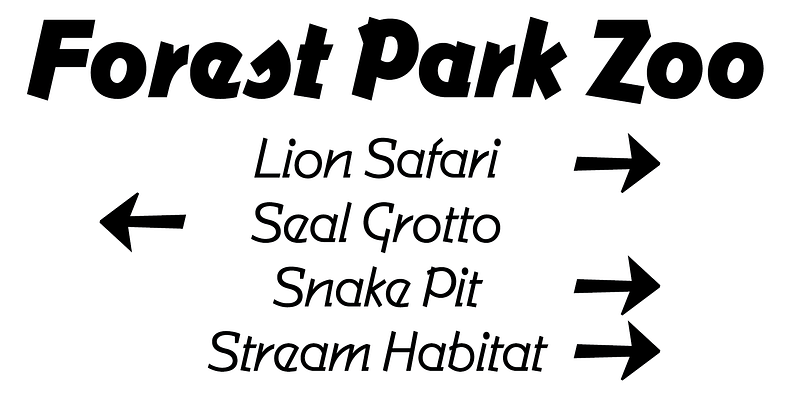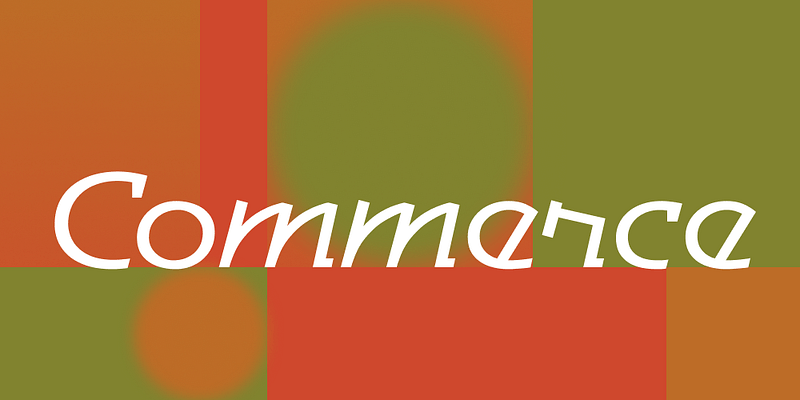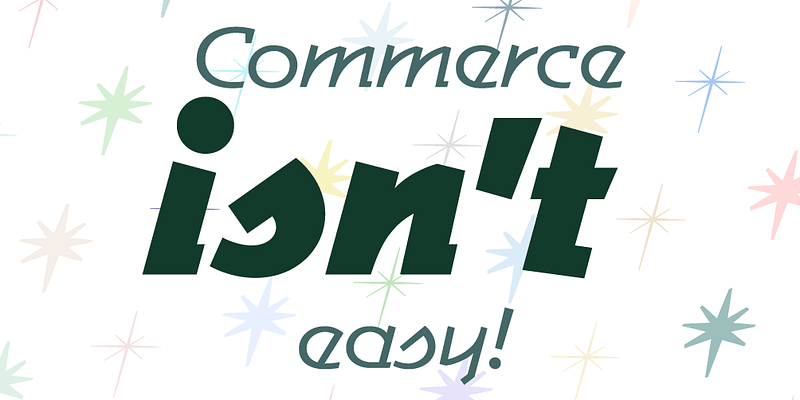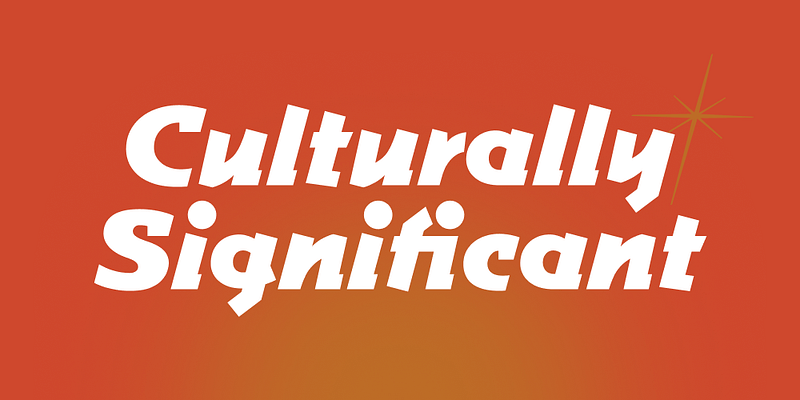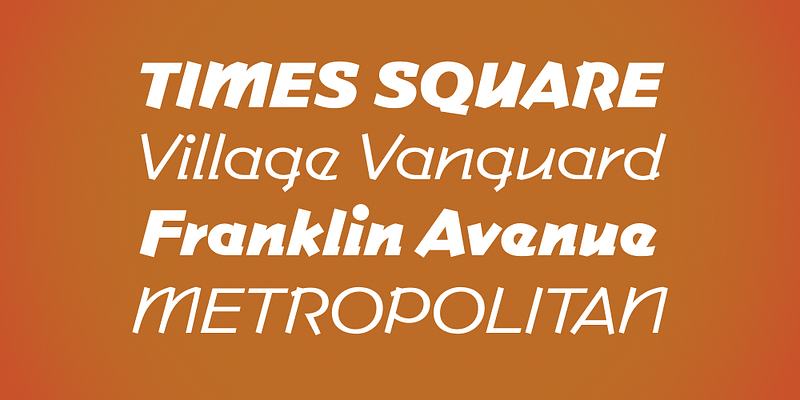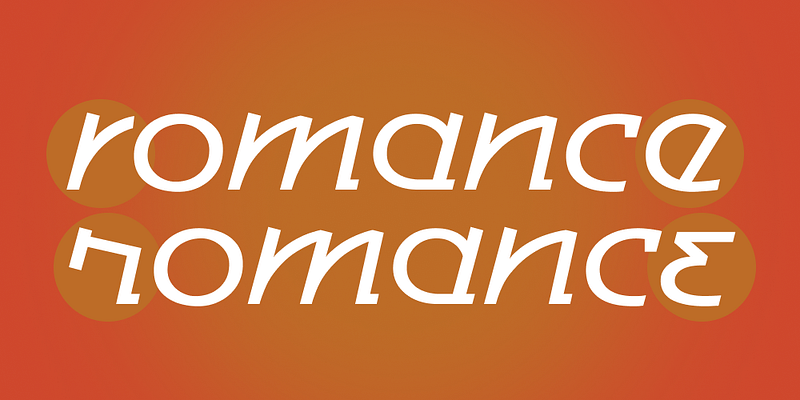
“Fifties style meets Cooper Black on the way to the Mac,” says Rick Valicenti as he describes the process of designing Commerce Fat & Commerce Lean. In 1992, the design team of Greg Thompson and Rick Valicenti deliberately crossed the advantages of advanced digital technology with mid-20th-century issues in style and lettering, to produce a happy marriage of something old with something new, the Commerce family; FB 1992
Since the late 1980s, Greg Thompson has developed popular typefaces that are now part of our visual landscape and branding vocabulary for large, forward-thinking companies and agencies alike. With a sense of historical reference combined with modern visual considerations, the fonts from Greg Thompson Type speak to more than one specific period in time. Each family is a chameleon capable of enhancing a designer’s limitless ideas, from movie posters to food packaging, book publishing, and beyond.